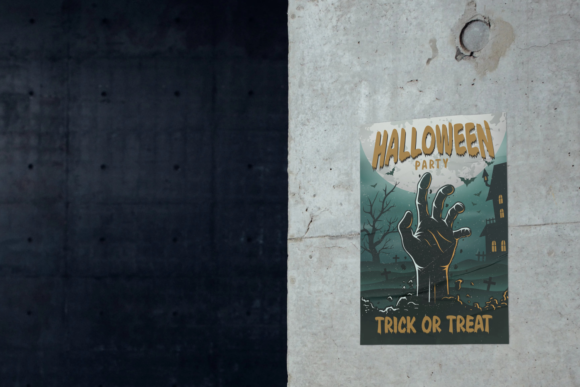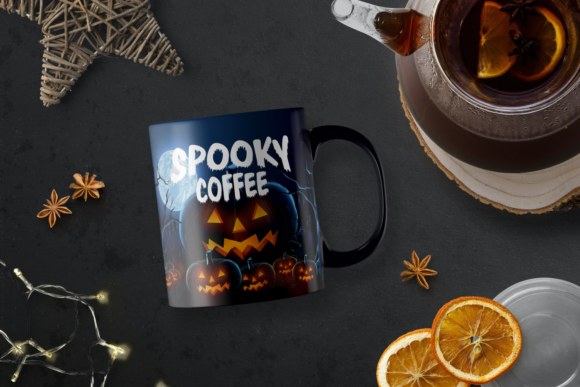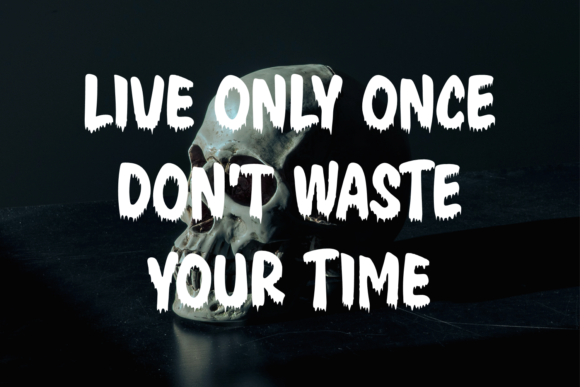
Spicing Up Your Halloween Creations
As the days get shorter and the nights get spookier, I find myself lost in a sea of creativity, searching for the perfect font to bring my Halloween-themed ideas to life. There’s something about the eerie atmosphere and the thrill of the unknown that sparks my imagination and sets my design juices flowing. And then, like a ghostly apparition, I stumbled upon the Bloody Modes Font – a bold and spine-tingling display font that has been the game-changer I needed to take my designs to the next level.
The Bloody Modes Font is a masterclass in creating a sense of foreboding and unease, making it the perfect addition to any Halloween-themed project. Its bold, gothic letters seem to leap off the page, drawing the viewer’s eye and refusing to let go. For designers, this font is a valuable asset, offering a unique and eye-catching way to add some much-needed drama to their creations.
Bloody Modes Font Key Features
- Font Style: Bloody Modes Font is a sans-serif font with a bold, edgy design.
- Size: The font size ranges from 12pt to 72pt, with 300 DPI (dots per inch) resolution.
- Unique Characteristics: Bloody Modes Font features a unique blend of gothic and industrial elements, making it perfect for horror-themed designs and gaming communities.
Bloody Modes Font Review
Overall, I think Bloody Modes Font is a solid choice for designers looking for a unique and eye-catching display font. ✨ Here are some of its strengths:
- ✨ The font’s bold, distressed aesthetic adds a level of grit and edginess that can work well for certain design projects.
- ✨ The font’s versatility means it can be used in a variety of contexts, from music and art to fashion and lifestyle.
- ✨ The font’s irregularities and imperfections give it a unique, handmade feel that can add character to designs.
- ⚠️ The font’s boldness can make it difficult to read at smaller font sizes, and may require careful selection of colors and backgrounds to ensure legibility.
- ⚠️ The font’s distressed aesthetic may not be suitable for all design projects, particularly those that require a more polished or professional look.
Overall, I think Bloody Modes Font is a great choice for designers who want to add a bit of attitude and personality to their designs. Just be sure to use it thoughtfully and consider its limitations.
Tip: Use Bloody Modes Font for bold, eye-catching headings and titles to grab attention.
Tip: Use Bloody Modes Font for creating bold, graffiti-style text effects.
Tip: Use Bloody Modes Font for creating bold, attention-grabbing titles and headings.
Bloody Modes Font is perfect for:
- Graffiti-style text effects
- Bold, eye-catching headings and titles
- Street art and urban design
- Graphic design and visual identity